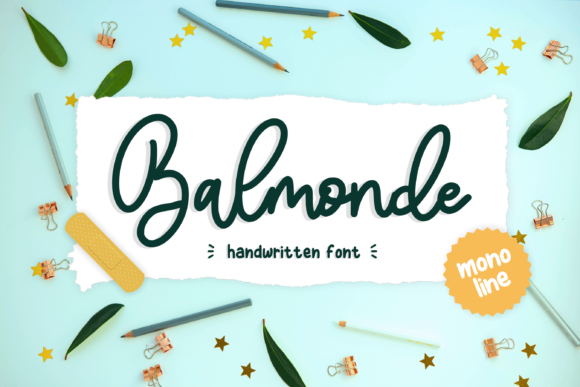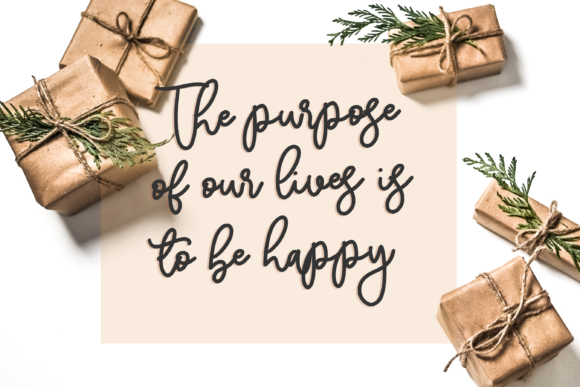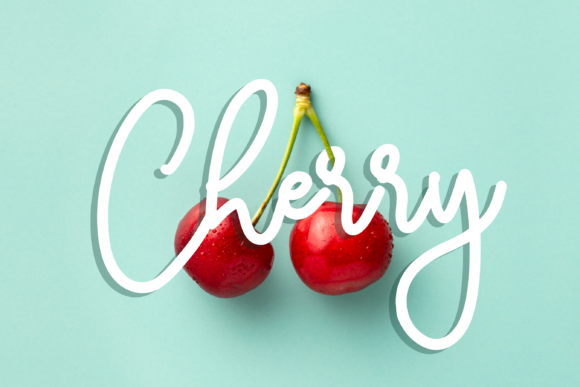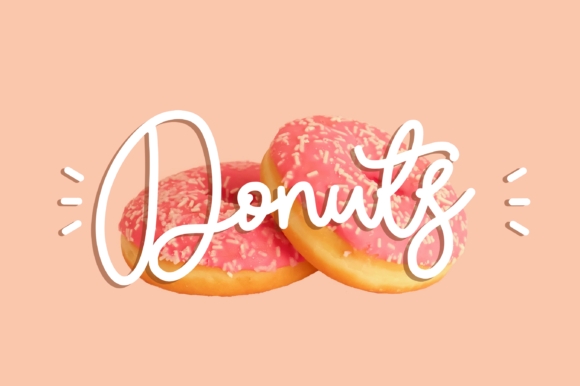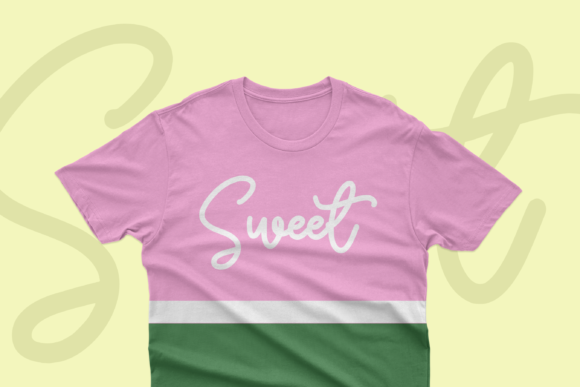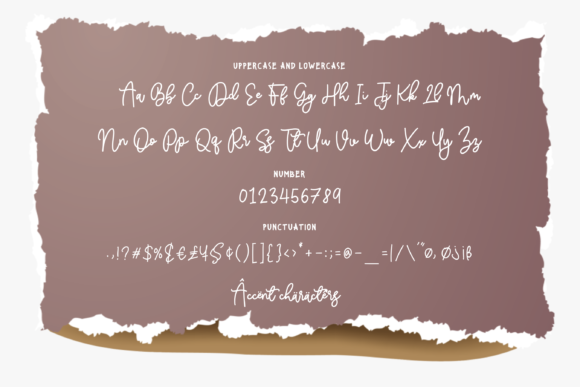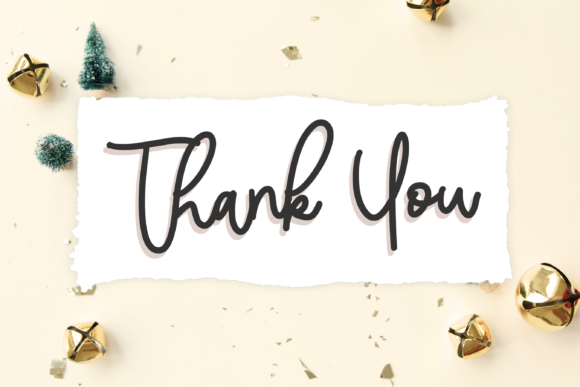
Balmonde Font
About Balmonde Font
Balmonde is a magical handwritten font carefully created with a touch of elegance. It features an incredibly classic style, while still keeping a friendly feel. This font is the perfect font for making original and outstanding designs.